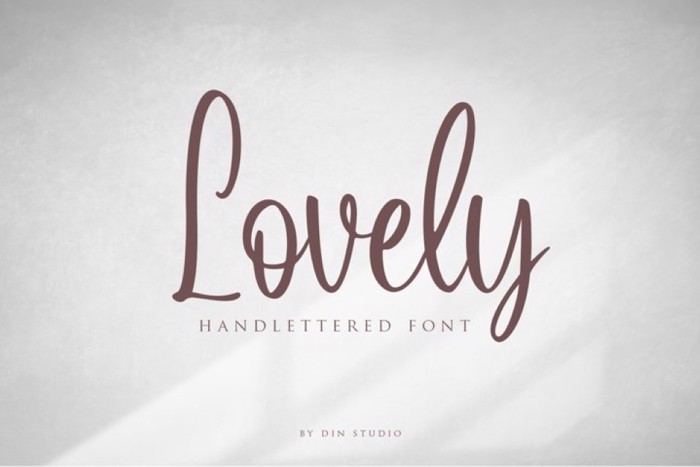
Lovely Font
Product Description :
Lovely Script is the right answer! Lovely Script is suitable for many project designs especially for branding projects, weddings, and letterings.